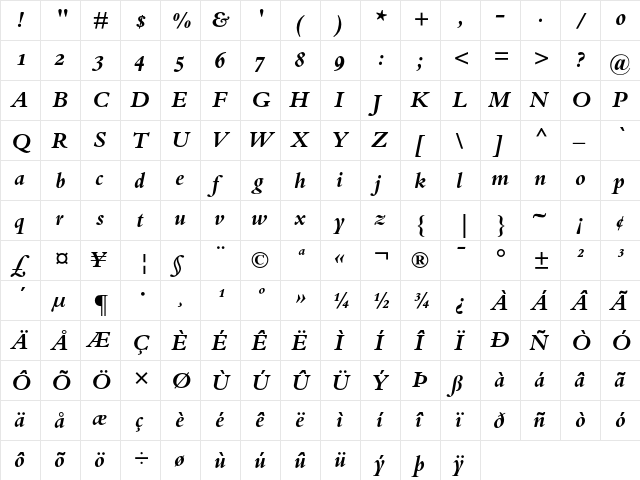
Bembo Bold Italic Oldstyle Figures
Design Context for Bembo Typeface
Bembo carries the refined structure of traditional serif typography, with bracketed terminals and considered proportions that communicate credibility and craft. The dynamic lean of this cut emphasises speed and emphasis in any layout. Its bold stroke weight gives it real presence on the page.
Pro Tip: Set Bembo with slightly loose tracking in headlines to let each letterform's detail read clearly at display sizes.